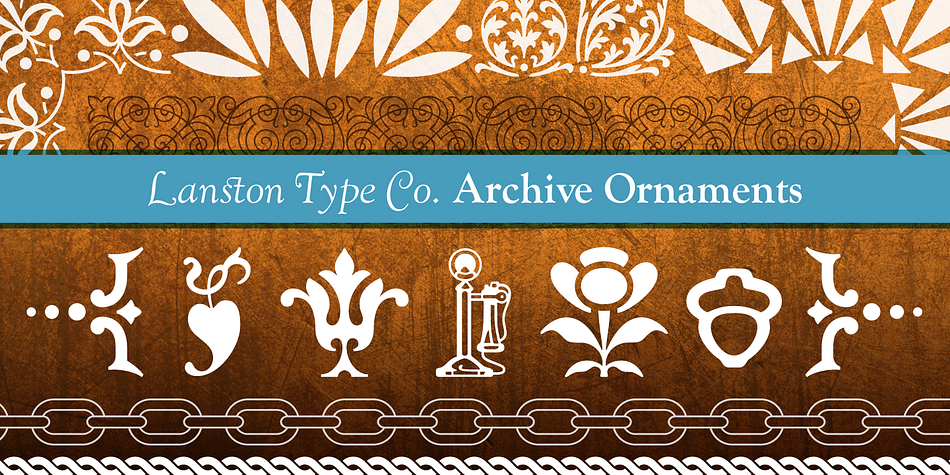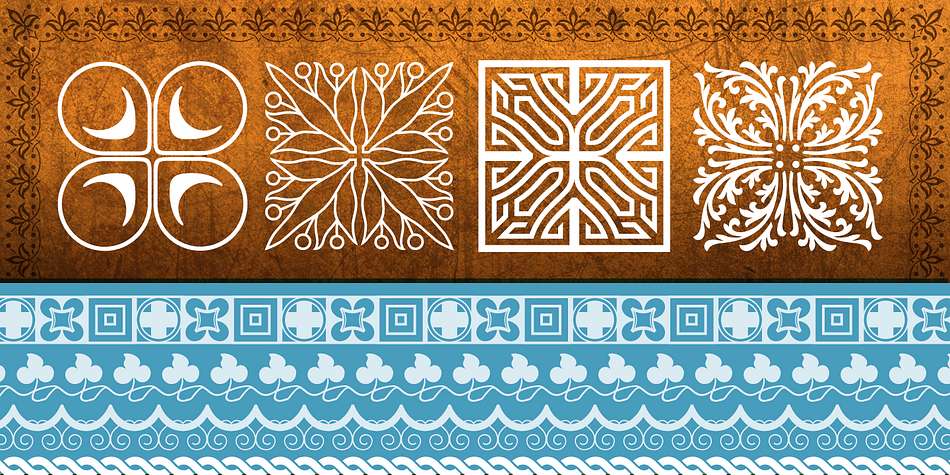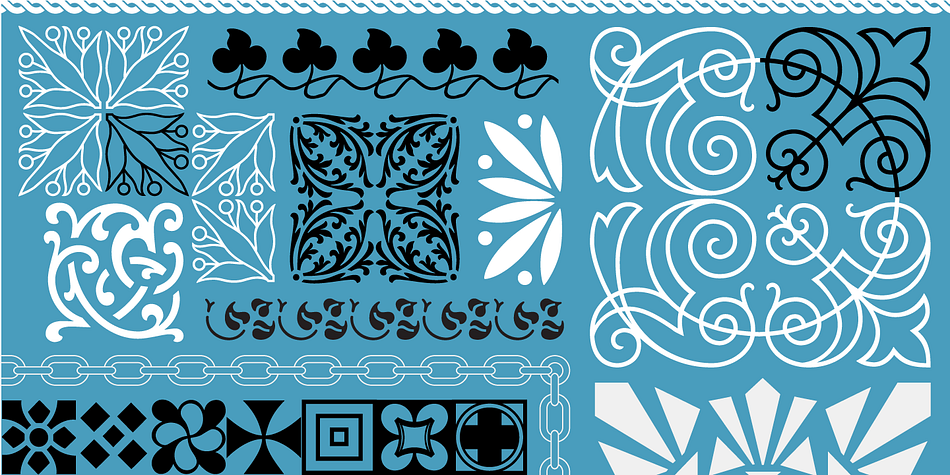
LTC Archive Ornaments
Designed by Miranda Roth and Richard Kegler, LTC Archive Ornaments is a dingbat font published by P22 Type Foundry.
Unlike previous dingbat fonts released from Lanston Type Co., Archive Ornaments derives from a unique collection of brass ornament plates that were originally used in creating the matrices for casting metal type. Using the plates as a reference point allowed for a more precise rendering of the ornaments. Letterpress prints were made directly from the brass plates, which were then re-drawn and digitized. Each character has been optimized for the combination of decorative borders and patterns as well as individual accentuation. The completed digitized font contains over 100 glyphs, ranging in style from geometric to organic designs.